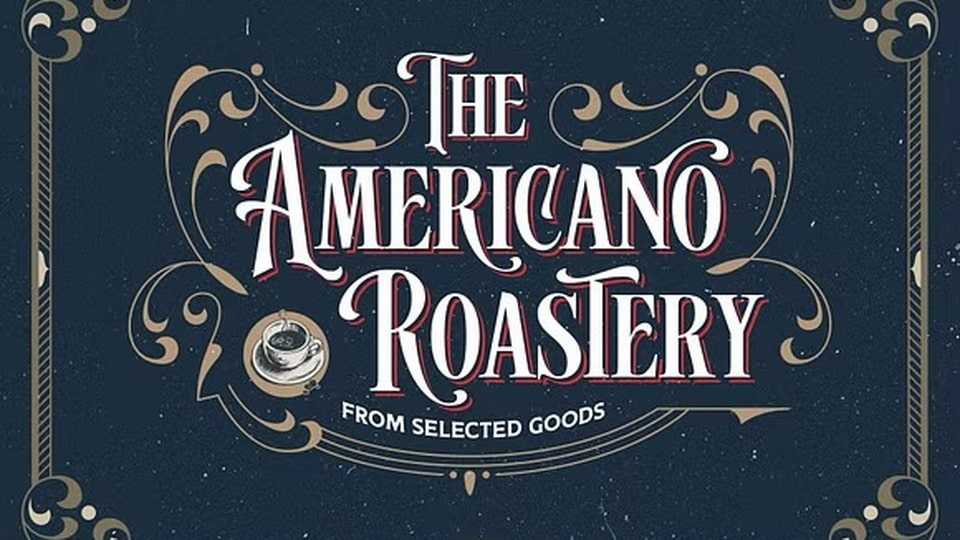
Download Arvoire Leonard font, a modern vintage typeface inspired by the typography from the 19th century. Collected from many references such as vintage signage, logos, badges, and old-fashioned graphics.